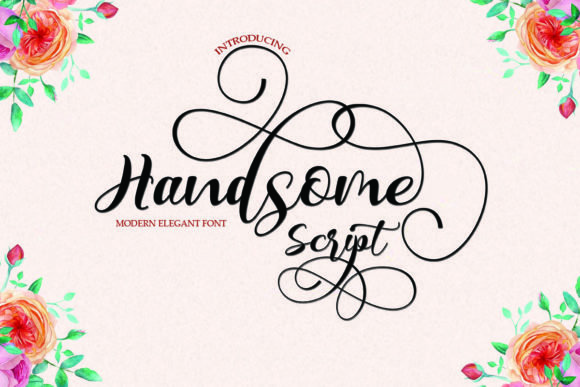
The Perfect Script Font for Your Next Masterpiece
There’s nothing quite like the feeling of bringing an idea to life. You’re sitting at your desk, surrounded by sketches and scribbled notes, and suddenly, it all comes together. The words flow effortlessly onto the page, and you know you’ve created something special. But what makes the difference between a good creation and a great one? For many designers, the answer lies in the font.
That’s where the Handsome Script Font comes in – a dazzling script font that’s perfectly suited to add a touch of elegance to your next project. Whether you’re designing a wedding invitation, a business logo, or a heartfelt letter, this font has the potential to elevate your work to new heights. With its neatly crafted and highly detailed design, the Handsome Script Font is a valuable addition to any font library.
Handsome Script Font Key Features
- Font Family: Handwritten Script Font
- Unique Characteristics: This script font features elegant, flowing connections and subtle flair, making it perfect for creative and artistic designs, such as wedding invitations, quotes, and watercolor-style illustrations.
- Font Weight: Available in Regular and Bold weights, allowing for versatility in design applications
Handsoma Script Font Review
Handsoma Script Font is a beautiful, elegant script font that’s perfect for adding a touch of sophistication to your designs. Here are some things that work well: ✨
- Unique character style: Handsoma Script Font has a distinct, handmade feel that sets it apart from other script fonts.
- Highly legible: Despite its elegant appearance, Handsoma Script Font is surprisingly easy to read, even at smaller font sizes.
However, there are also some limitations to consider: ⚠️
- Limited font sizes: Handsoma Script Font may not be suitable for large font sizes, as it can become difficult to read and lose its elegance.
- No bold or italic variants: If you need a bold or italic version of the font, you may need to look elsewhere.
- May require tweaking: Depending on your design, you may need to adjust the font settings to achieve the perfect look.
Overall, Handsoma Script Font is a great choice for designers who want to add a touch of elegance to their projects. With its unique character style and high legibility, it’s perfect for invitations, branding, and other design projects where a script font is needed.
Use the Handsome Script font for titles, headings, and quotes to add a touch of elegance to your designs.
Experiment with different font sizes and colors to create contrast and visual interest.
Combine the Handsome Script font with other fonts to create a unique and stylish look.
Social media graphics and ads
Fashion and beauty branding
Book covers and publishing materials
Alternatives to Handsome Script Font
Great Vibes is a beautiful, elegant script font perfect for adding a touch of sophistication to your designs. It’s ideal for wedding invitations, greeting cards, and other formal events. Great Vibes is similar to Handsome Script Font in its flowing, cursive style, but it has a more refined and polished look.
Carolyna Pro is a modern script font with a touch of whimsy and charm. It’s perfect for branding, advertising, and editorial designs. Carolyna Pro has a similar feel to Handsome Script Font, but it’s more versatile and can be used in a variety of settings.
Alex Brush is a elegant, handwritten script font that’s perfect for creating a sense of warmth and personality in your designs. It’s ideal for packaging, labels, and other product designs. Alex Brush has a more organic and natural feel compared to Handsome Script Font, but it’s still a great option for adding a touch of sophistication.